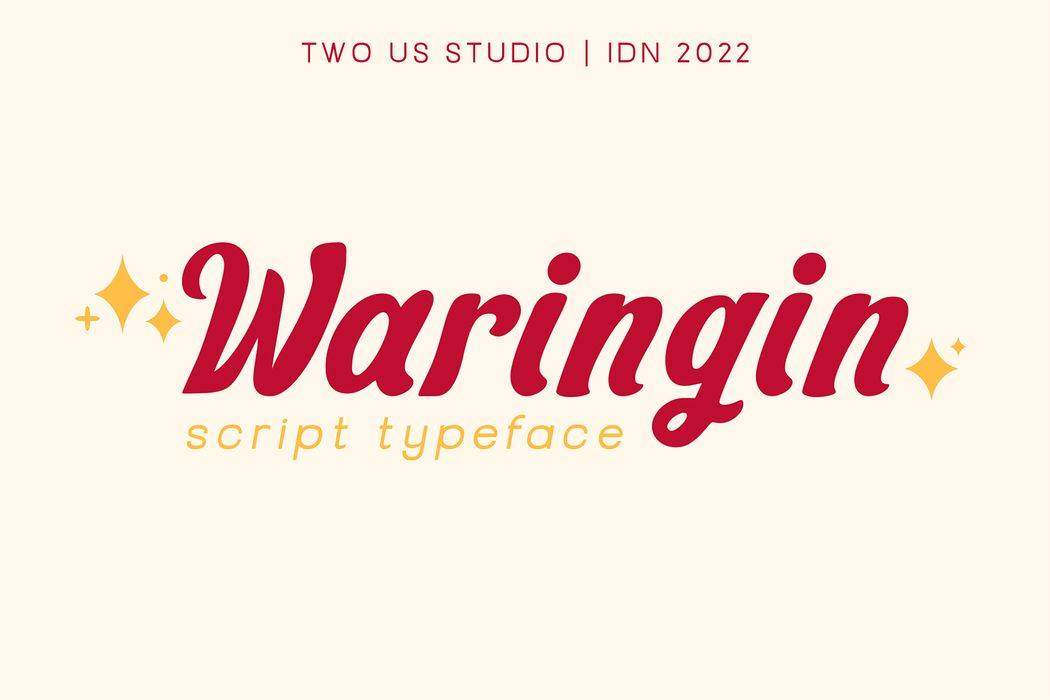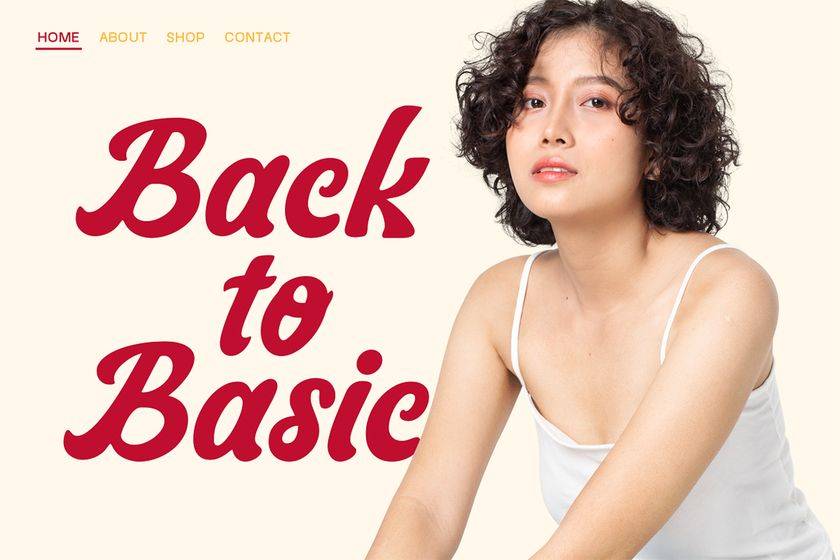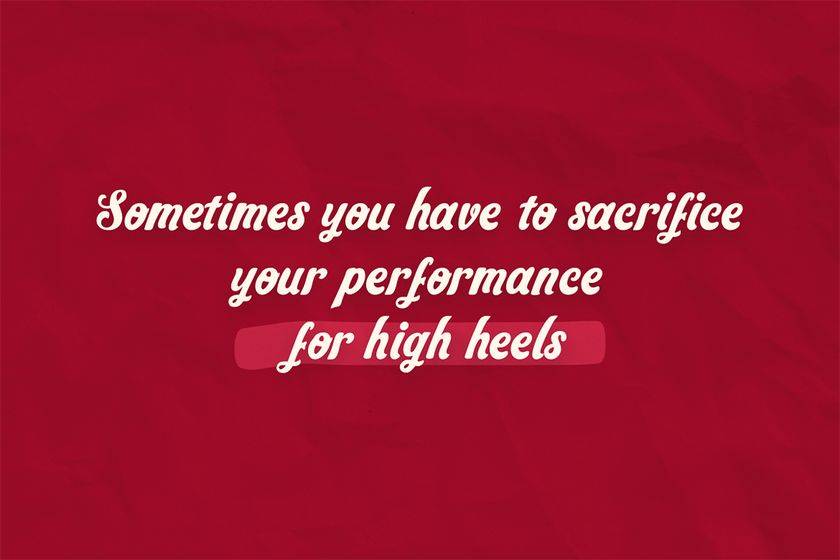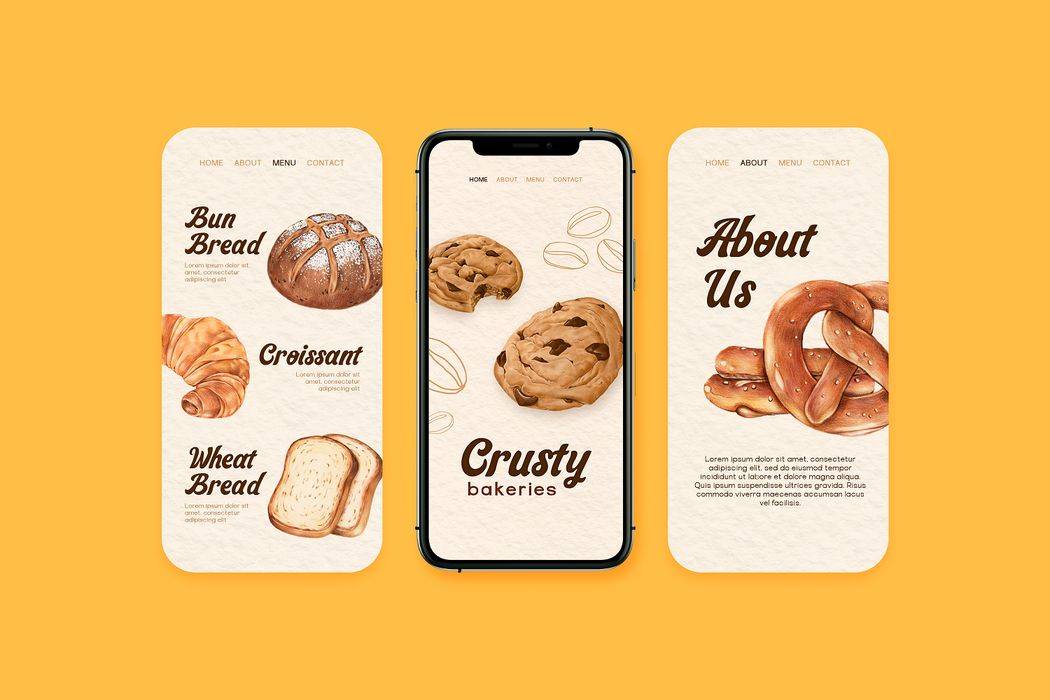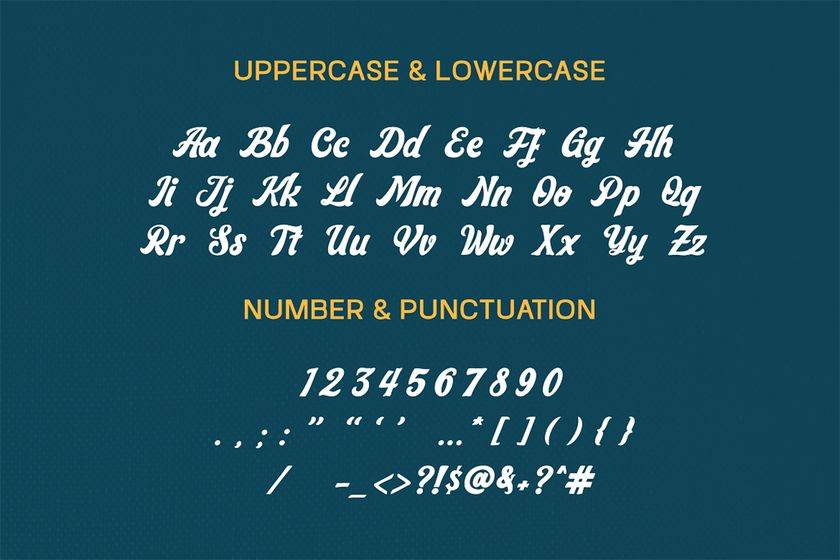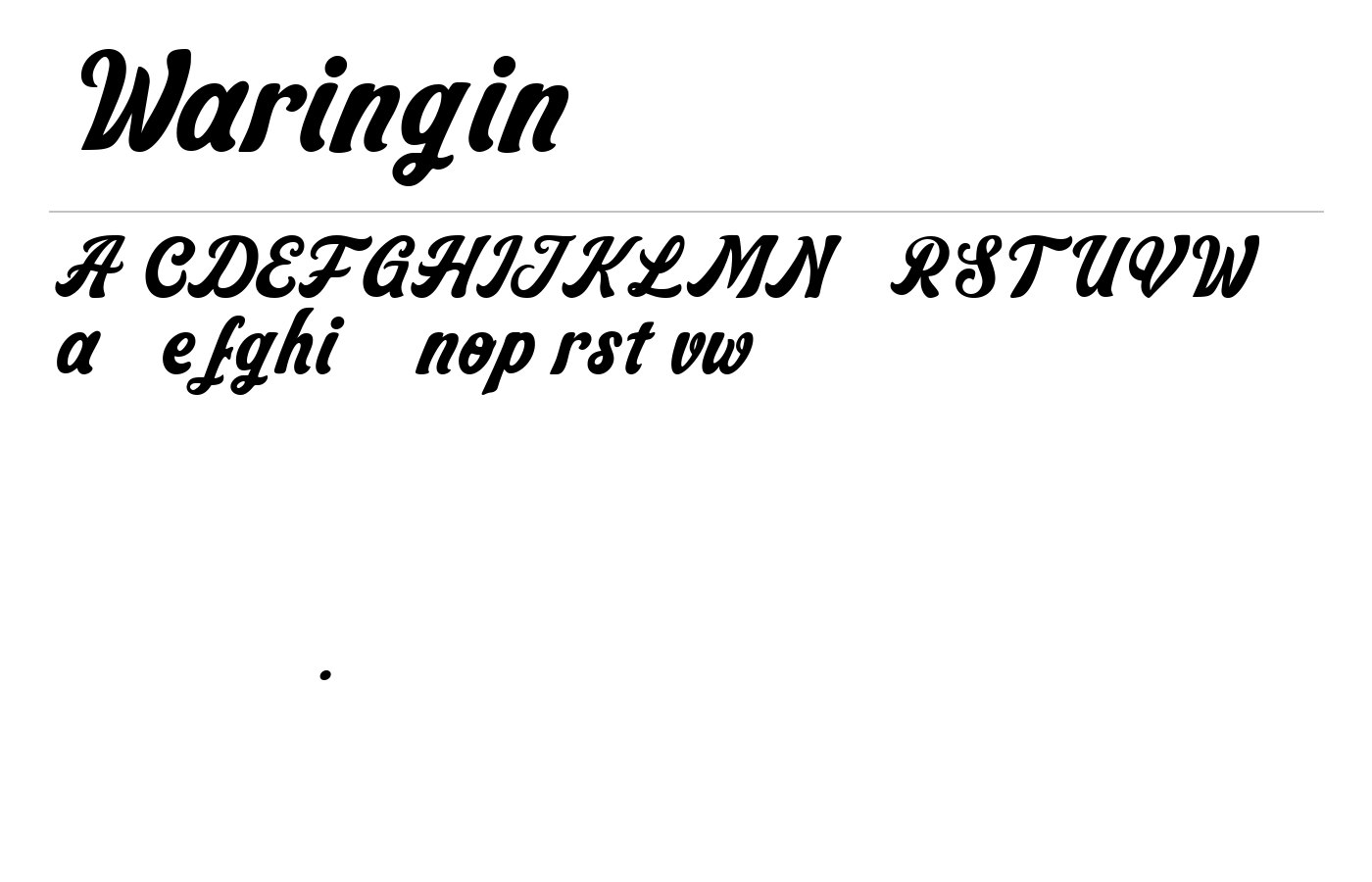
Waringin is a bold, cursive script font with a smooth and flowing style that instantly adds a friendly, retro charm to any design. Its moderately high x-height and rounded letterforms make it highly legible while retaining a playful yet elegant personality, perfect for branding, logos, and headlines that seek a warm and approachable vibe. This font works beautifully in projects that want to feel inviting and classic, especially in creative and lifestyle contexts.
Waringin Font
About Waringin Font
| Font family | Waringin Font |
| Designer | Two Us Studio |